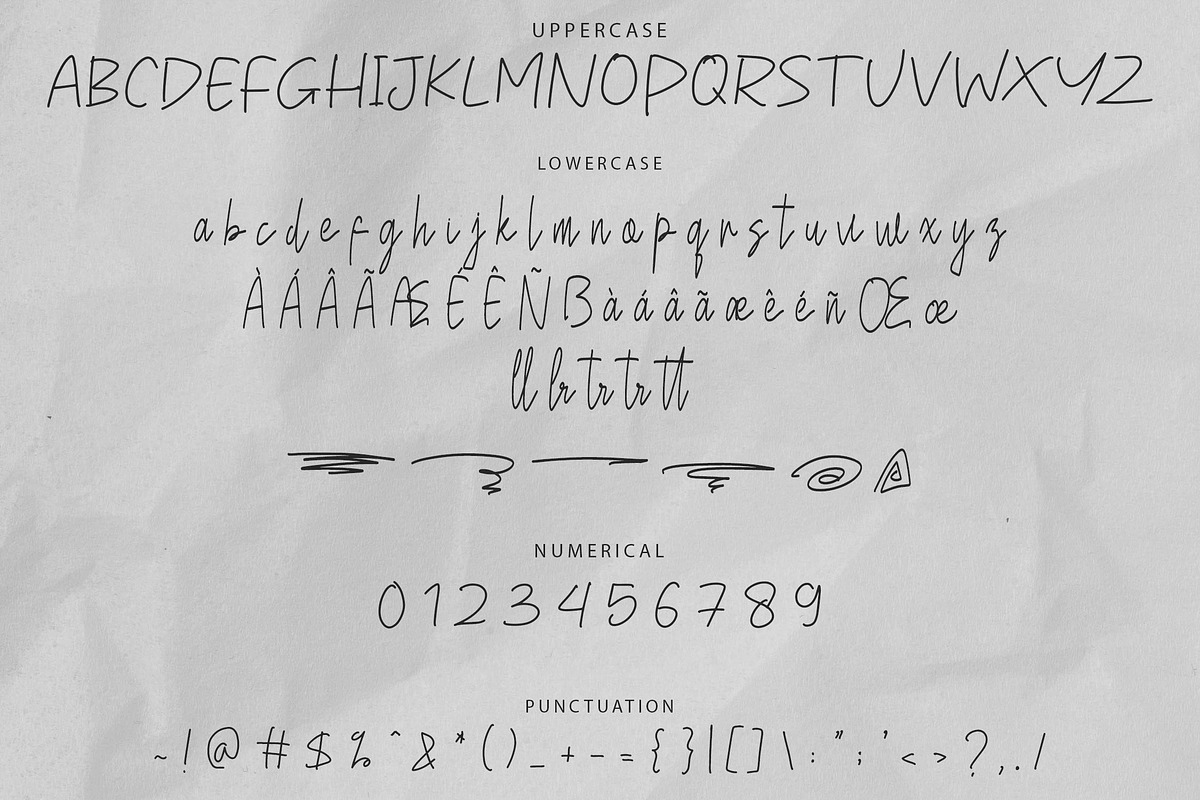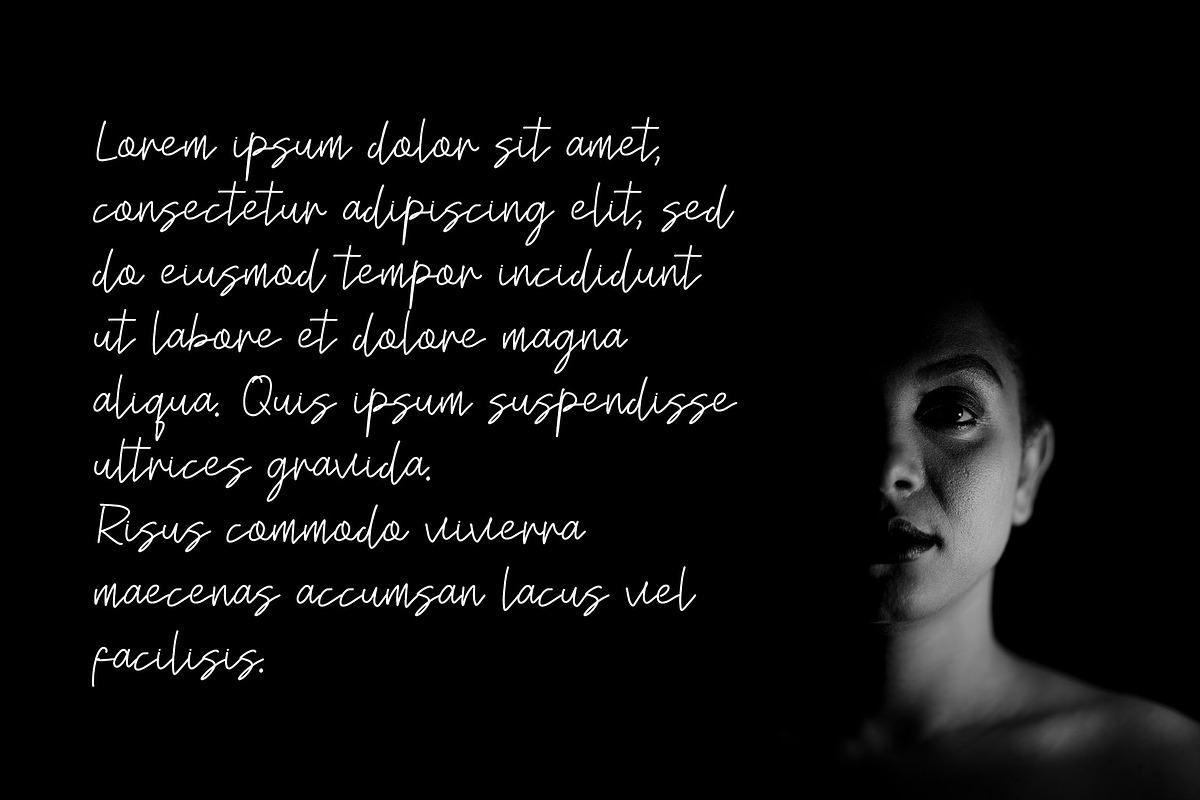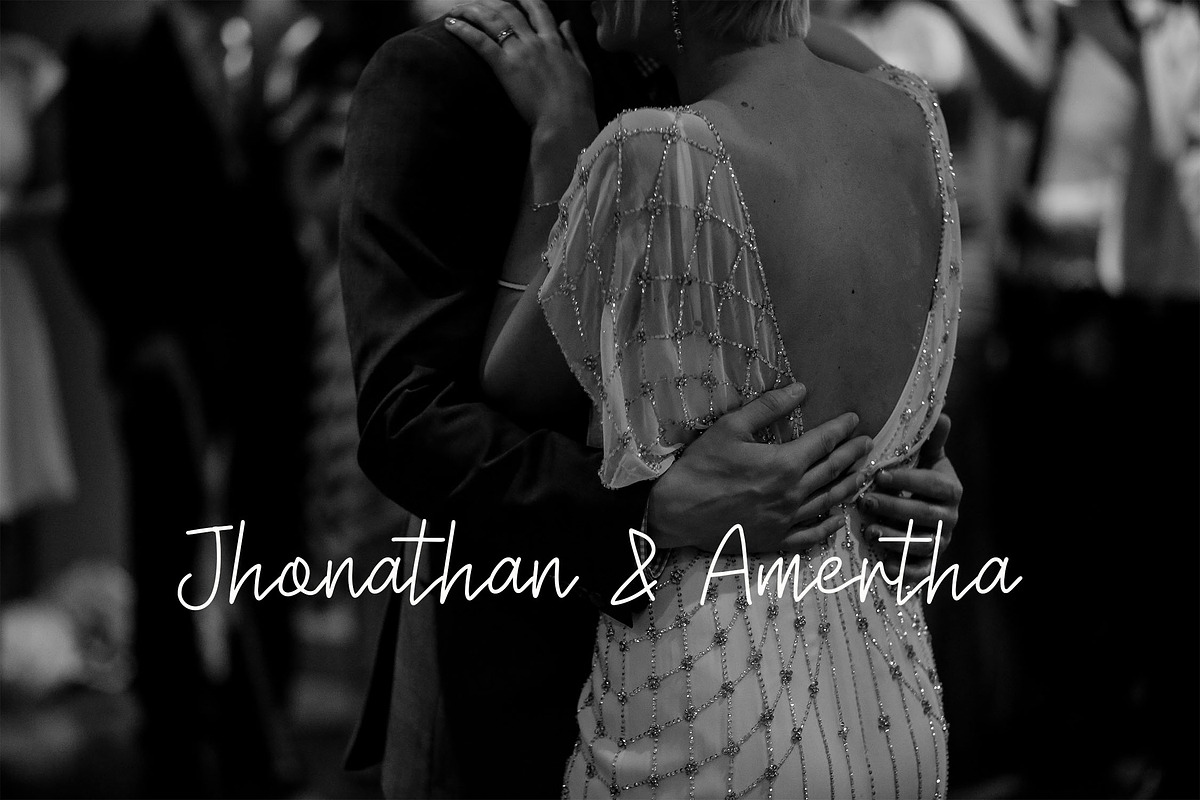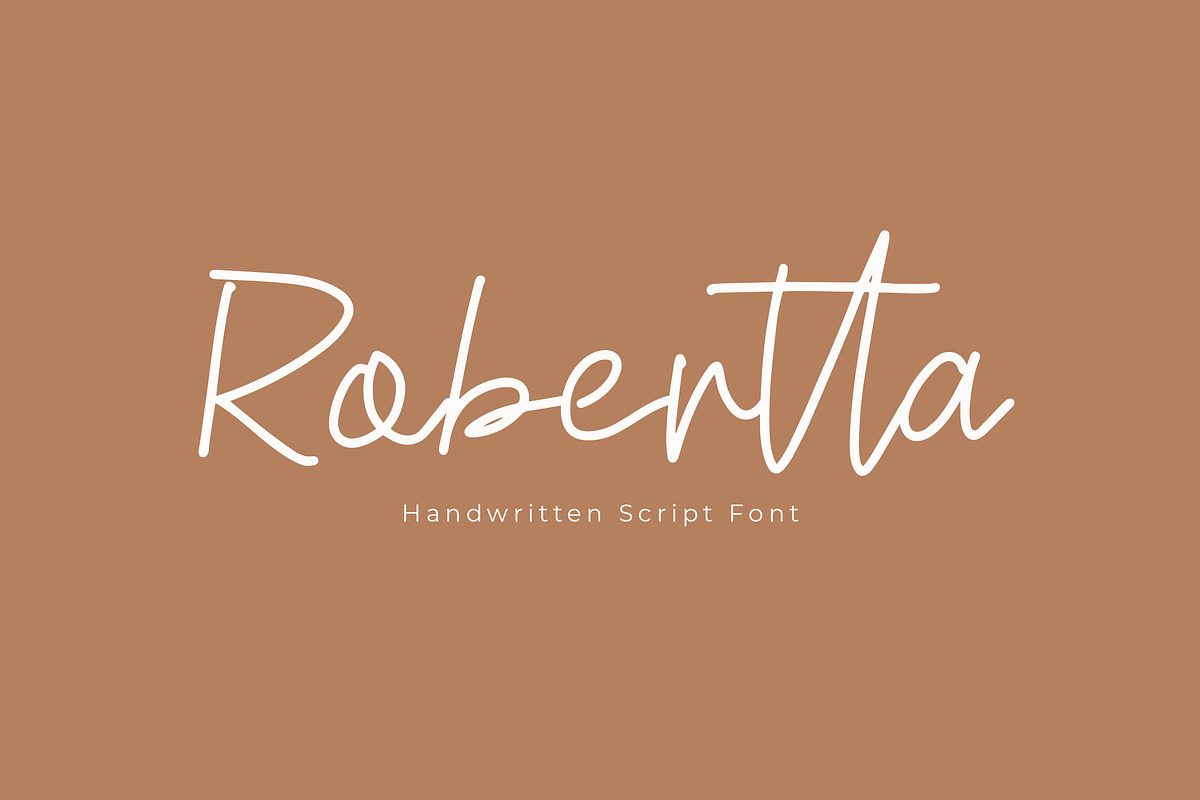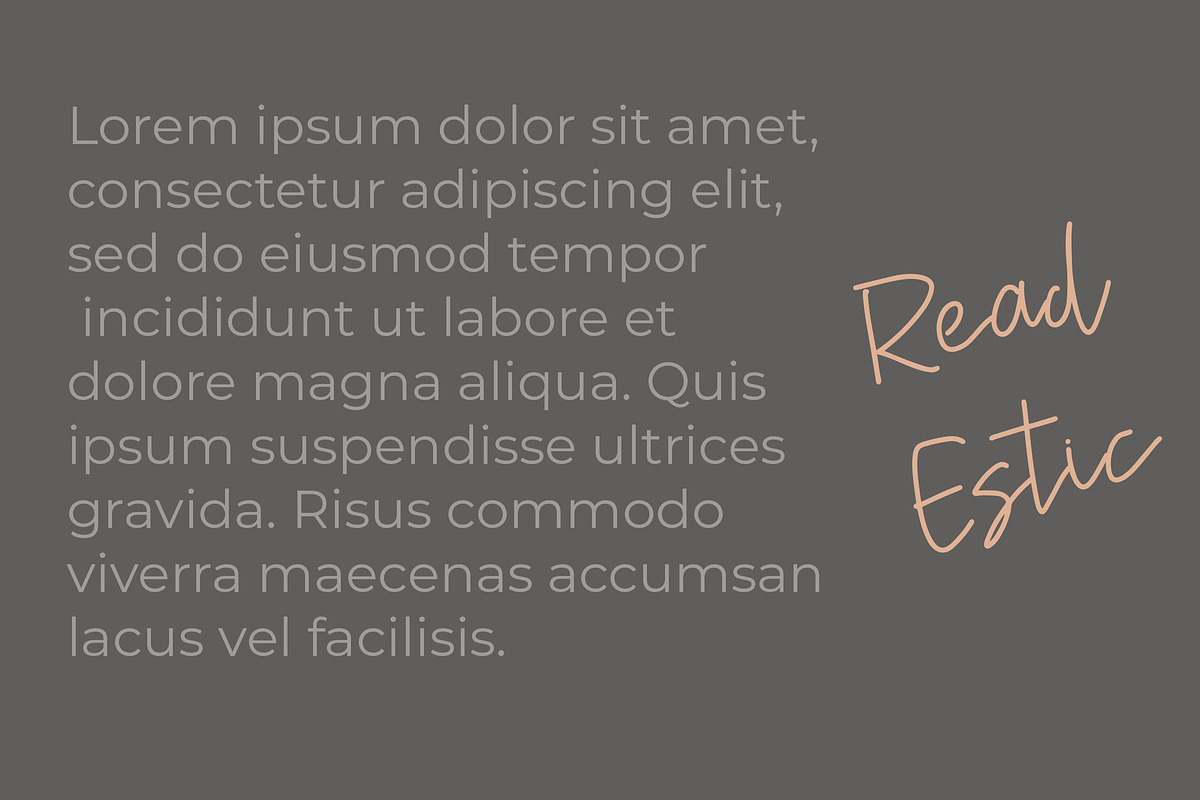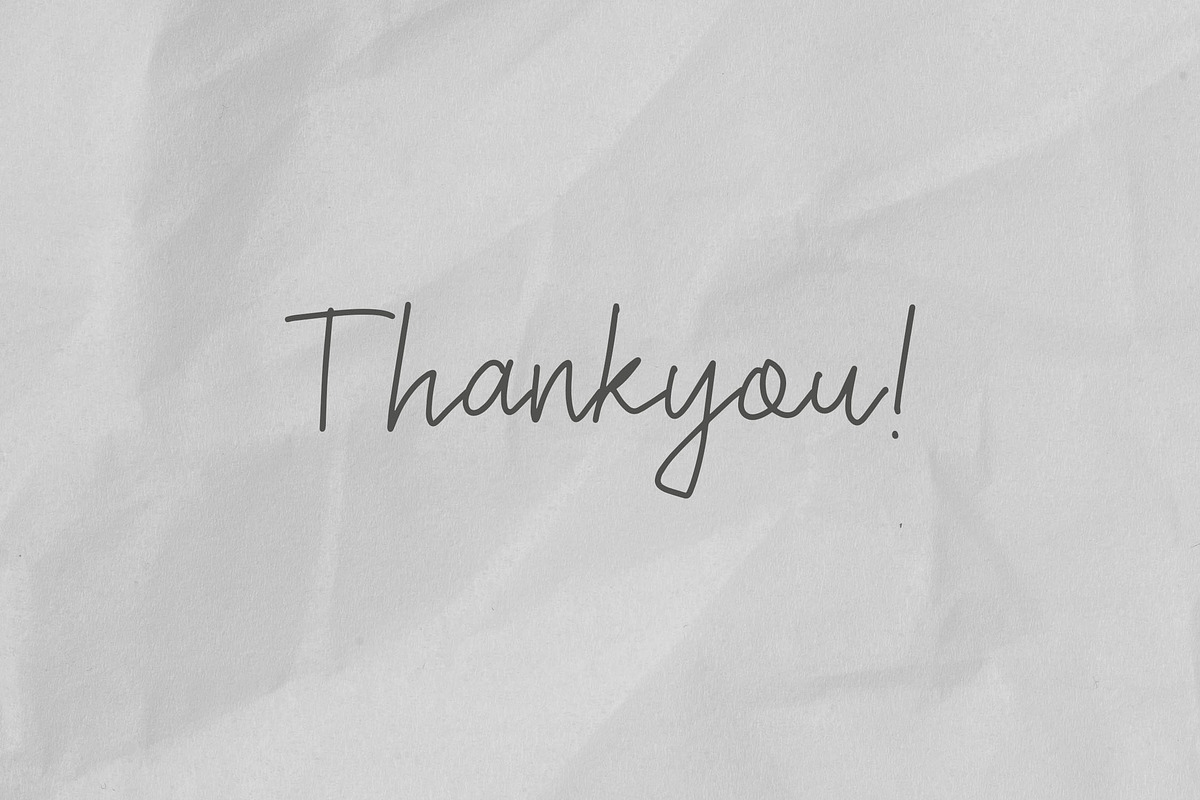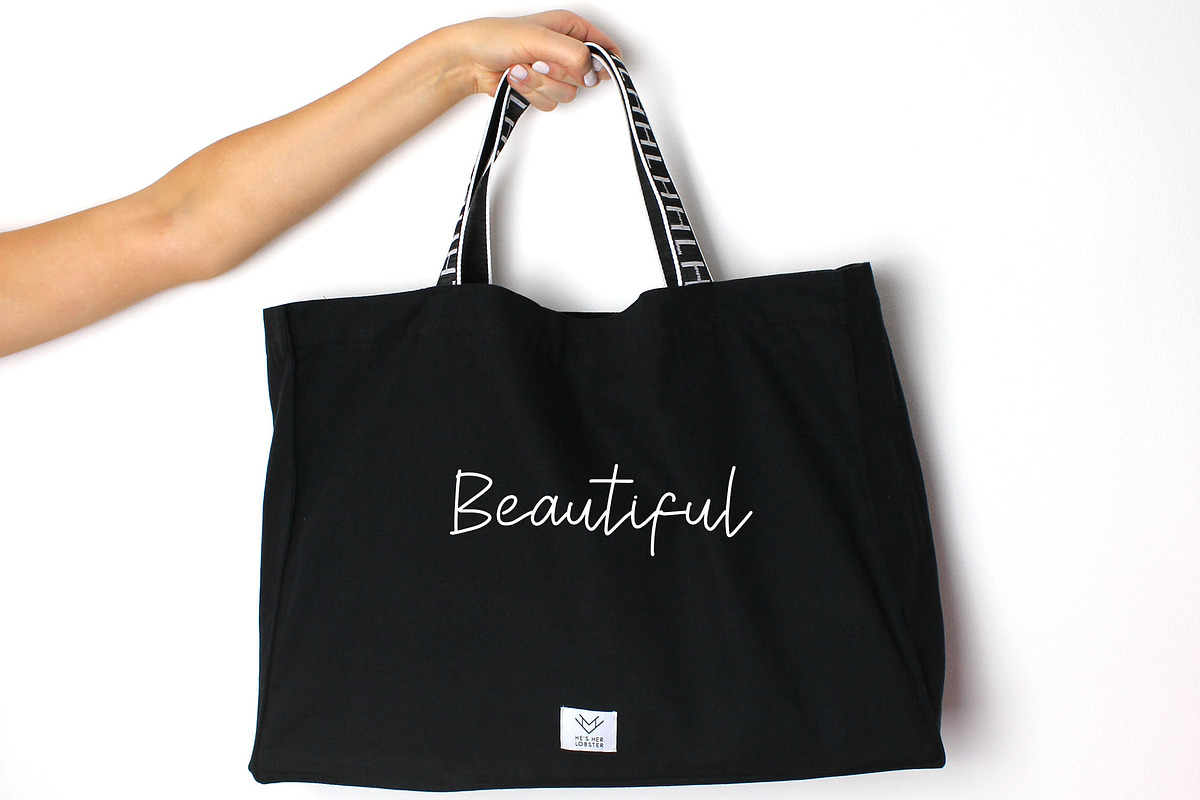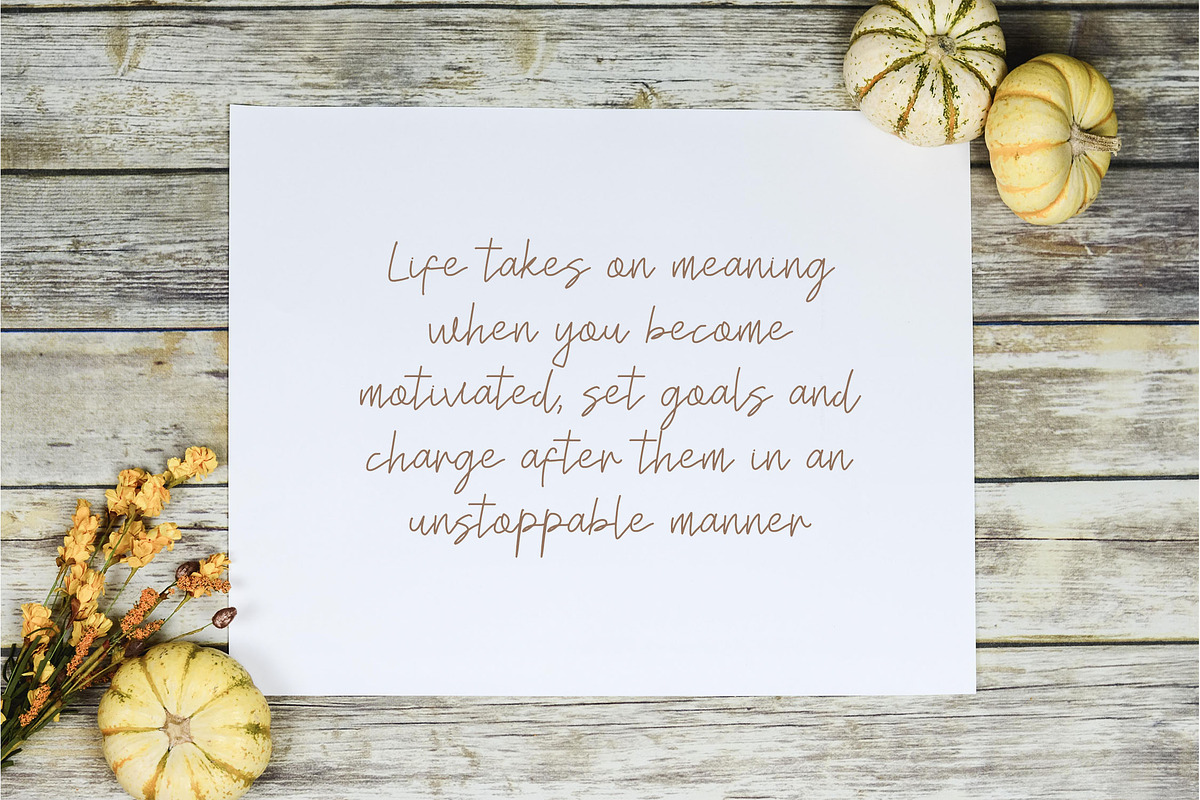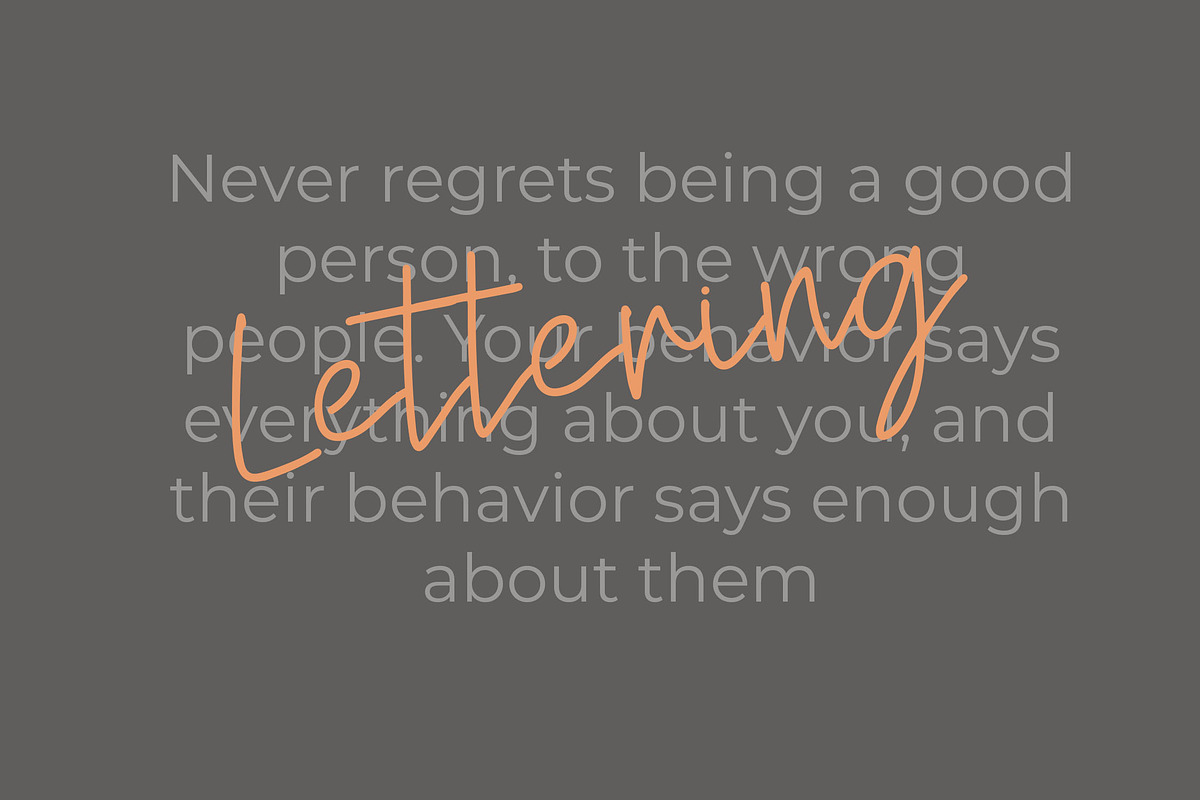
Robertta Handwriting Script Font
Robertta - Monoline Handwriting Script Font
Robertta is a beautiful handwriting script font with a smooth monoline brush style. Its elegant, flowing letterforms are designed with unique character shapes, making it perfect for adding a sophisticated touch to your creative projects. Whether you're working on branding, product packaging, or social media content, Robertta enhances your design with a modern and professional look.
- Ligatures for seamless connections between letters
- Stylistic alternates for design versatility
- Elegant swashes to enhance your typography
- Multilingual support for global audiences